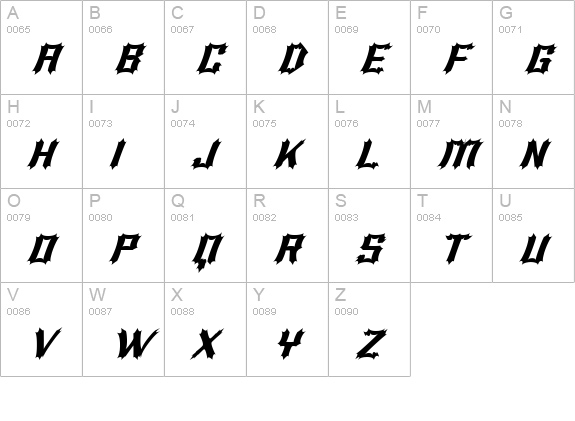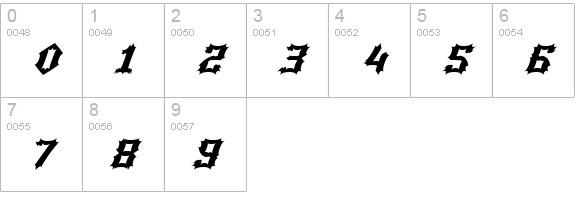
Luciferius Italic Font Details
Luciferius Italic is a distinctive, italic variant in the Luciferius typeface family \xE2\x80\x94 well suited to design and typography projects.
Luciferius Italic is an elegant and sophisticated font that exudes a sense of mystery and allure. With its sleek lines and stylish curves, this font is perfect for adding a touch of sophistication to any design project. The italicized style adds a sense of drama and flair, making it ideal for headlines, logos, and other eye-catching elements. What's even better is that Luciferius Italic is available for free download at FontsMarket.com. This means that you can easily incorporate this stunning font into your projects without breaking the bank. Whether you're working on a website, poster, or branding materials, Luciferius Italic is sure to make a bold statement and leave a lasting impression. Download it today and elevate your designs with this captivating font.